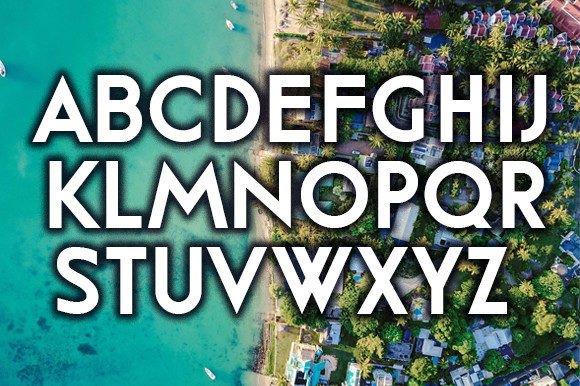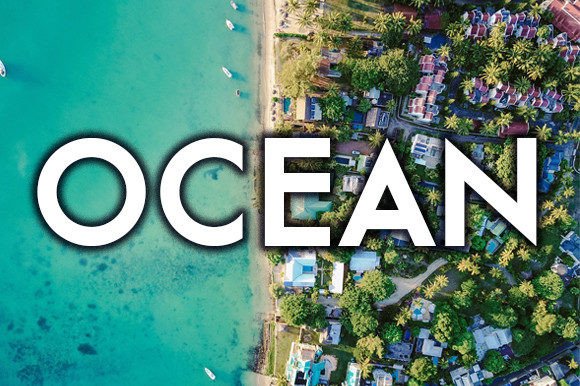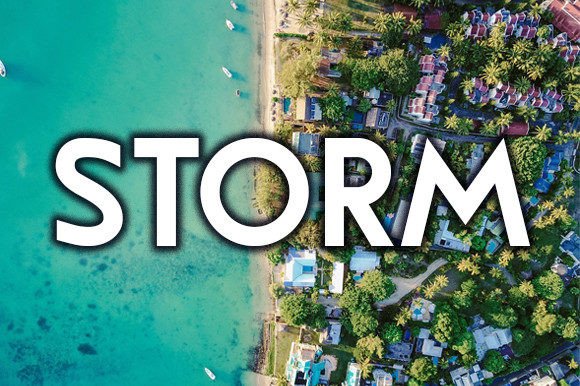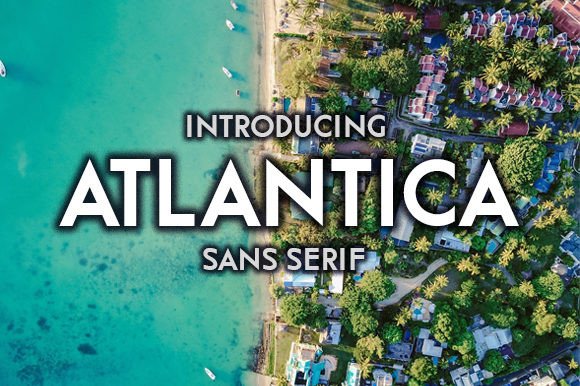
Introducing Atlantica Font: Elevate Your Designs with Style and Authenticity
Are you on the hunt for a font that exudes style, authenticity, and versatility? Look no further than the Atlantica Font. This stunning sans serif typeface is designed to elevate your projects, making it perfect for a wide range of applications, from posters and flyers to t-shirts and more.
What is Atlantica Font?
Atlantica is a carefully crafted sans serif font that boasts a unique blend of modernity and sophistication. Its clean lines, precise curves, and balanced proportions make it an excellent choice for designers seeking a font that can convey a sense of professionalism and style. Whether you’re working on a commercial project or a personal endeavor, Atlantica Font is sure to make a lasting impression.
Key Features of Atlantica Font
- Stylish and Authentic Design: Atlantica Font features a distinctive design that sets it apart from other sans serif fonts. Its stylish and authentic aesthetic makes it perfect for projects that require a touch of sophistication.
- Versatile and Adaptable: This font is incredibly versatile and can be used on a wide range of projects, including posters, flyers, t-shirts, and more.
- Easy to Read: Atlantica Font is designed with readability in mind, making it perfect for body text, headings, and titles.
- High-Quality Design: Each letterform has been carefully crafted to ensure a high level of quality and attention to detail.
Use Cases for Atlantica Font
Atlantica Font is an incredibly versatile typeface that can be used in a variety of contexts. Here are just a few examples of how you can use this stunning font:
- Posters and Flyers: Create eye-catching posters and flyers that grab attention with Atlantica Font. Its stylish design and easy readability make it perfect for promoting events, products, or services.
- T-Shirts and Merchandise: Take your t-shirt and merchandise designs to the next level with Atlantica Font. Its unique aesthetic and high-quality design make it perfect for creating stylish and memorable apparel.
- Branding and Identity: Establish a strong brand identity with Atlantica Font. Its professional and sophisticated design makes it perfect for use in logos, business cards, and other marketing materials.
Why Choose Atlantica Font?
With so many fonts available, why choose Atlantica Font? Here are just a few reasons why designers and crafters love this typeface:
- Unique Design: Atlantica Font features a unique design that sets it apart from other fonts. Its stylish and authentic aesthetic makes it perfect for designers seeking a font that can help their projects stand out.
- High-Quality Construction: Each letterform has been carefully crafted to ensure a high level of quality and attention to detail.
- Easy to Use: Atlantica Font is incredibly easy to use, making it perfect for designers of all skill levels.
In conclusion, Atlantica Font is a stylish and authentic sans serif typeface that is perfect for designers and crafters seeking a font that can elevate their projects. With its unique design, versatility, and high-quality construction, this font is sure to become a staple in your design arsenal. Whether you’re working on a commercial project or a personal endeavor, Atlantica Font is the perfect choice for adding a touch of style and sophistication.